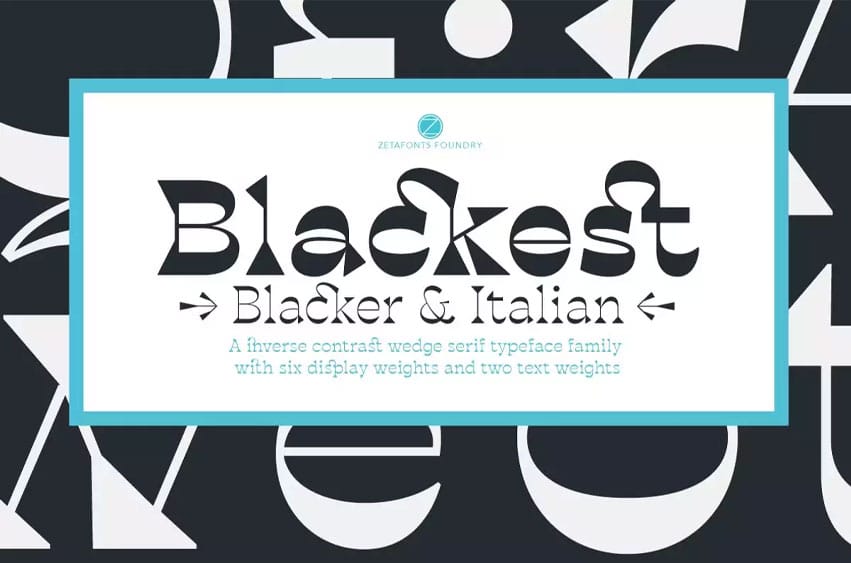
Blackest Font represents a reversed contrast wedge serif font family created by Francesco Canovaro and Andrea Tartarelli. This typeface emerged from Blacker, which Cosimo Lorenzo Pancini created, but Franco Canovaro and Andrea Tartarelli made their special interpretation. The authors maintained the classic design structure from the original, along with sharp lines, and then adjusted the contrast specifically for the characteristics of ‘Italian’ reverse-contrast fonts. The designers synthesized contrasting elements, which produced a typeface that shows eternal appeal alongside its fun yet sophisticated personality.
Blackest emerges from six distinctive user interface styles that exhibit unique character traits. The typeface stands out strongly, making it suitable for visual purposes, which include informational pieces and publication covers, alongside advertising designs along logo layouts. The text format of the font received two weight options with reduced contrast and increased letter spacing, which results in a more readable design suitable for body content.
Blackest enables access to more than 220 written systems that serve Latin and Russian Cyrillic linguistic frameworks. Blackest contains an extensive collection of OpenType features, which includes small caps and proportional figures and contextual alternates and stylistic sets and arrows and punctuation marks, and discretionary ligatures that enable extensive typographic creativity.